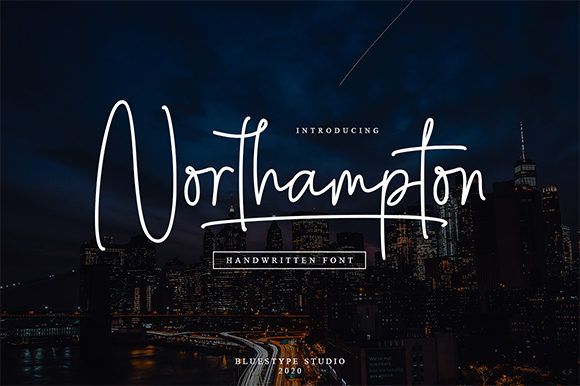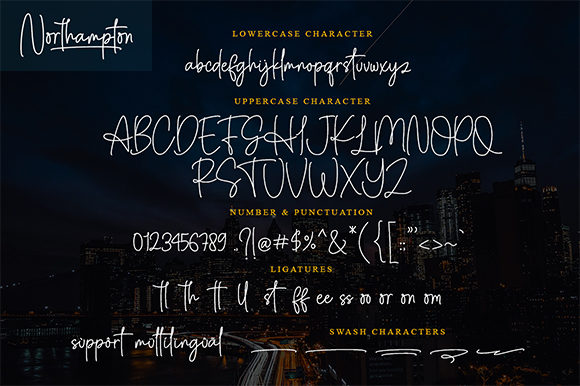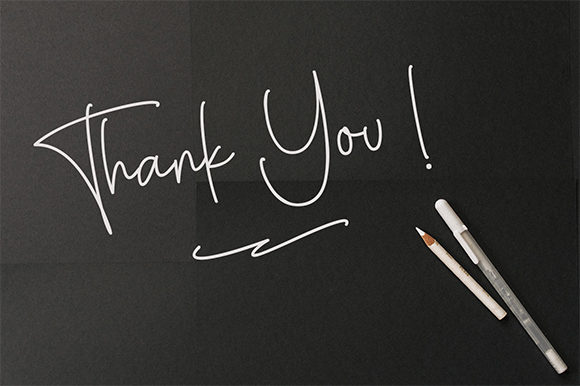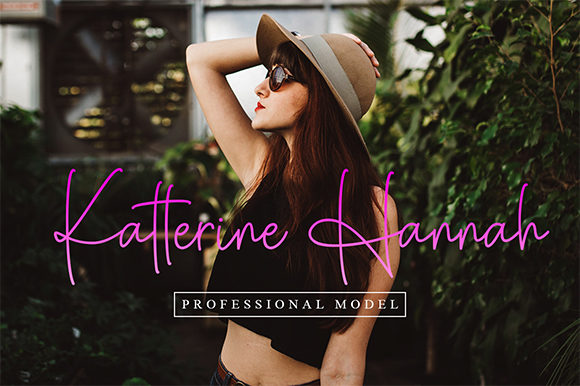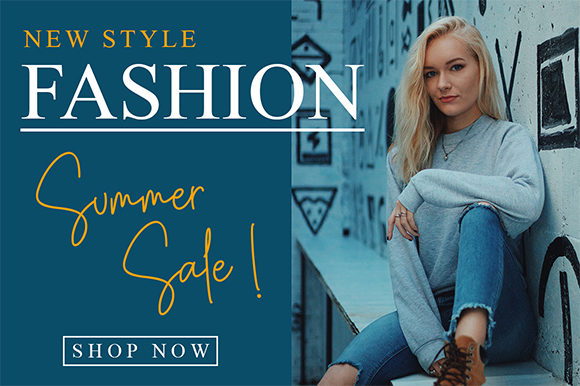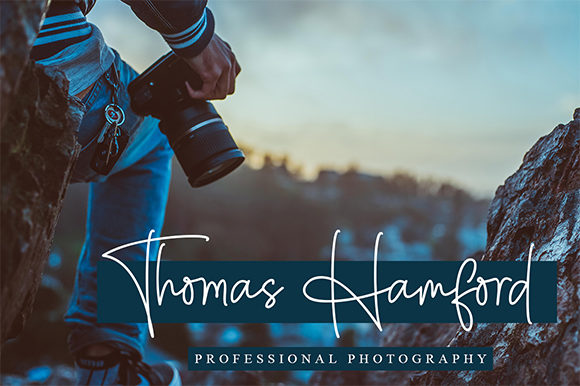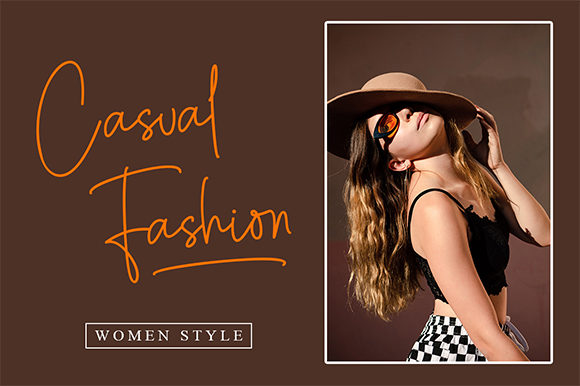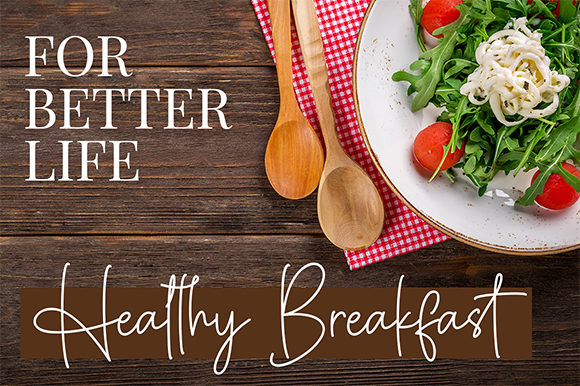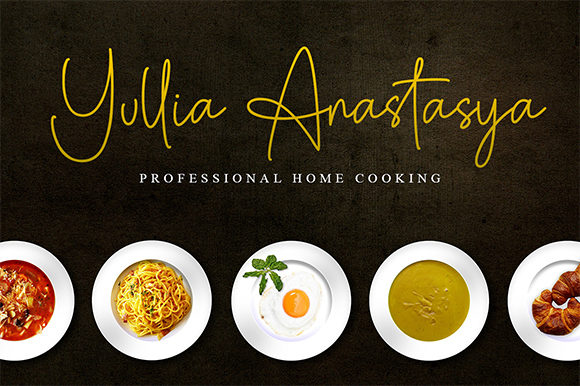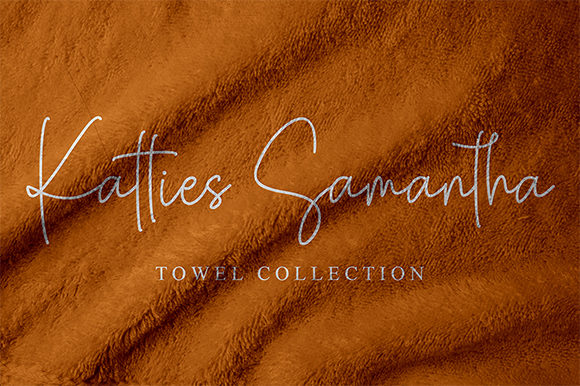
Northampton Font
About Northampton Font
Northampton is a stunning signature font with a cool twist, it has a light and fun script. It will be the ideal font to add a personal touch to any design.
This font is suitable for use on fashion designs, business cards, wedding invitations, t-shirt designs, logos, quotes, photography and much more.